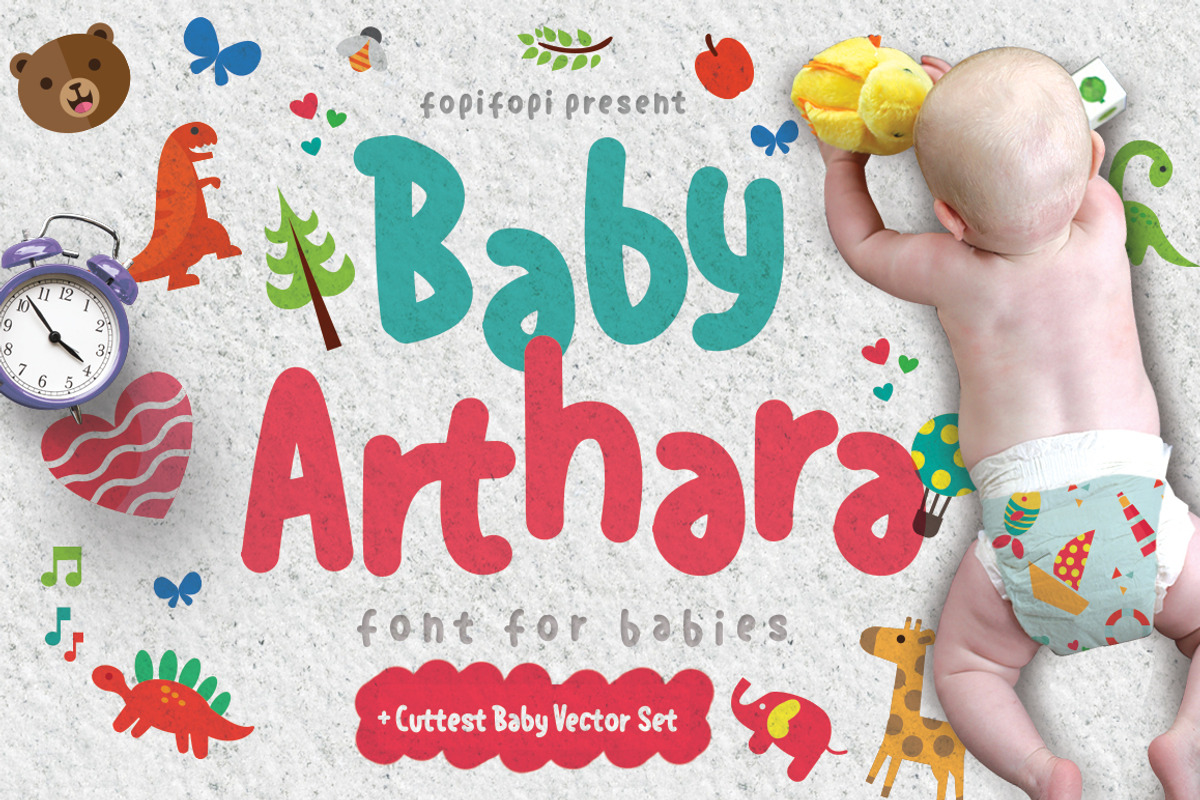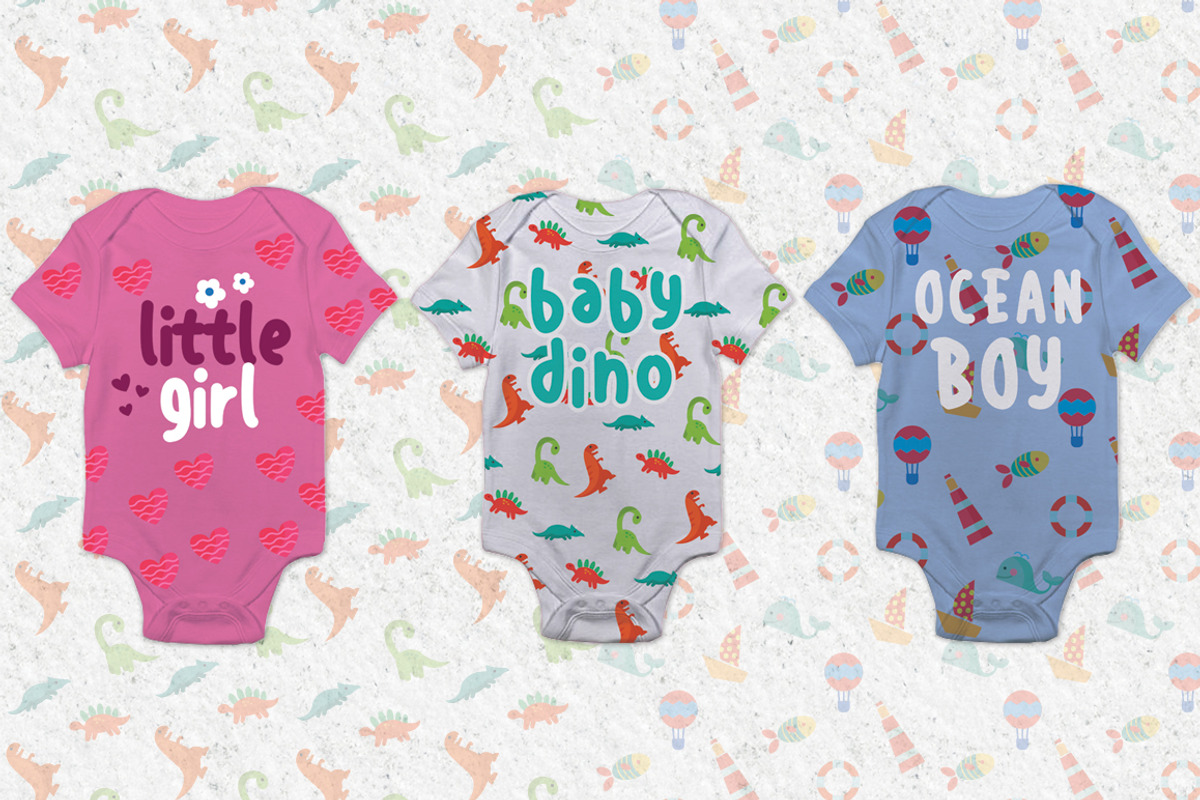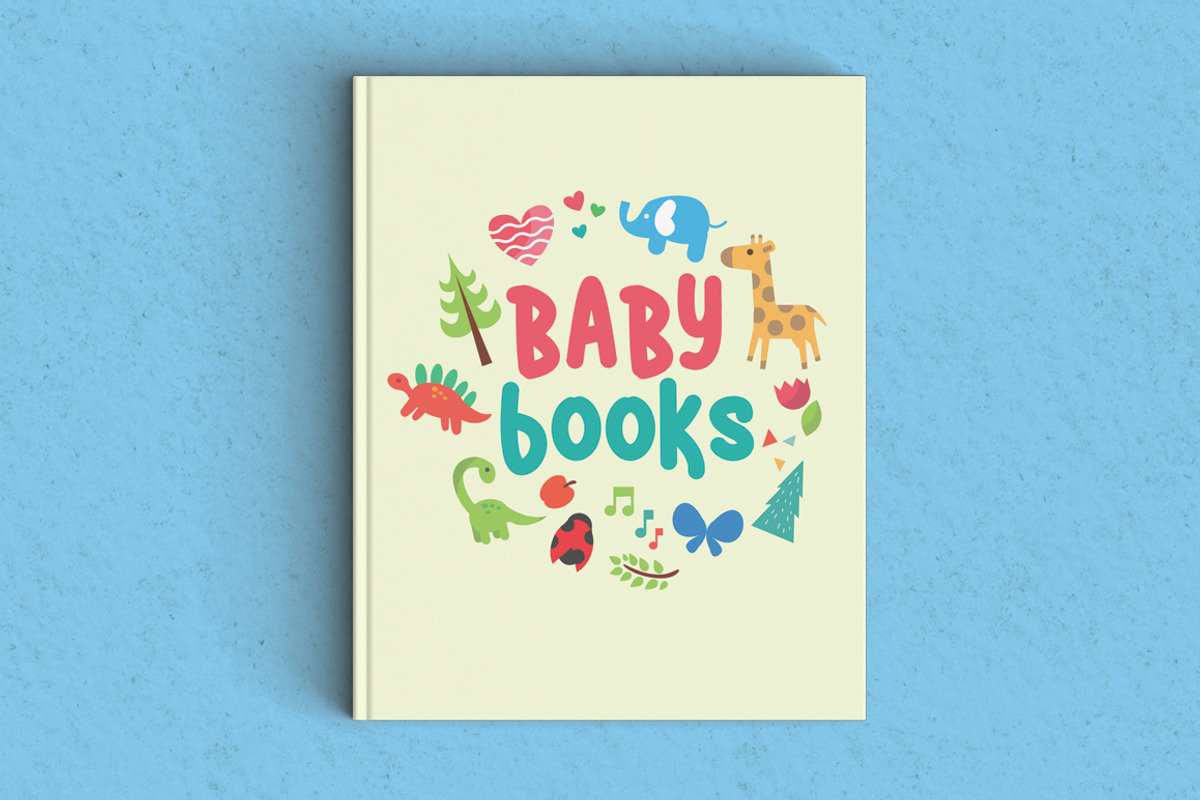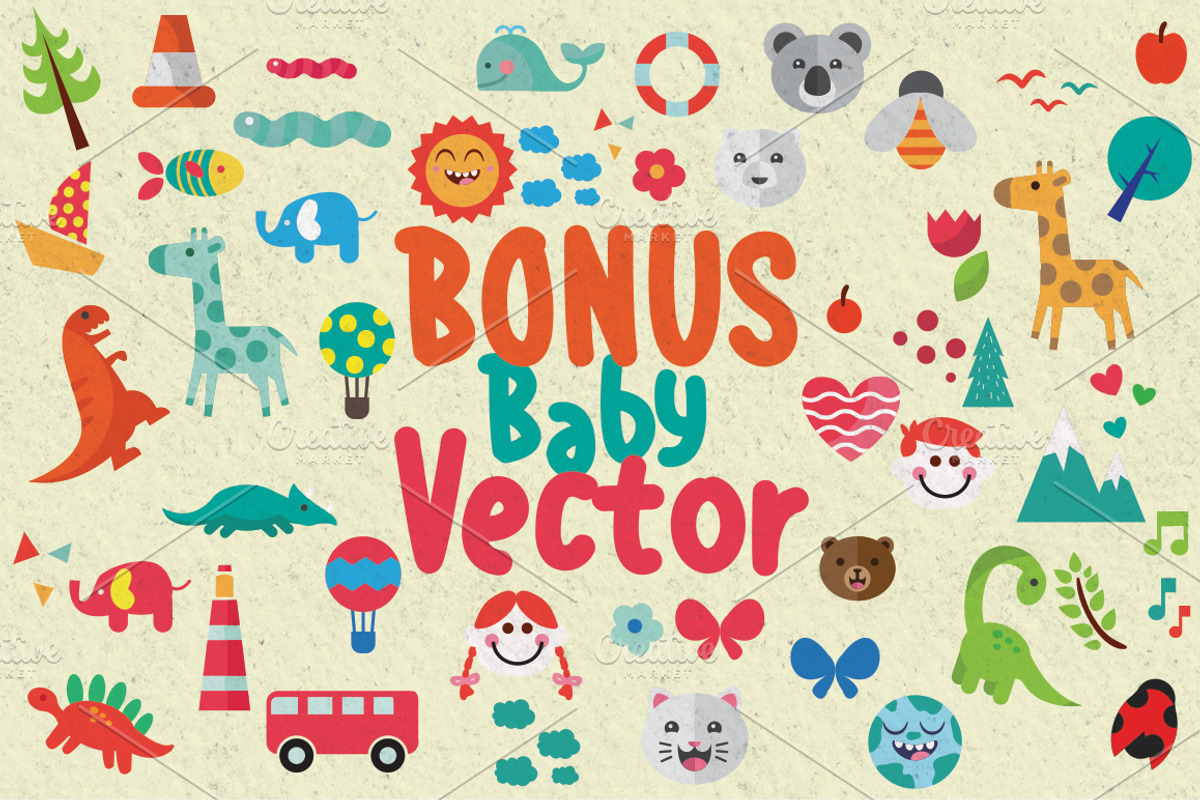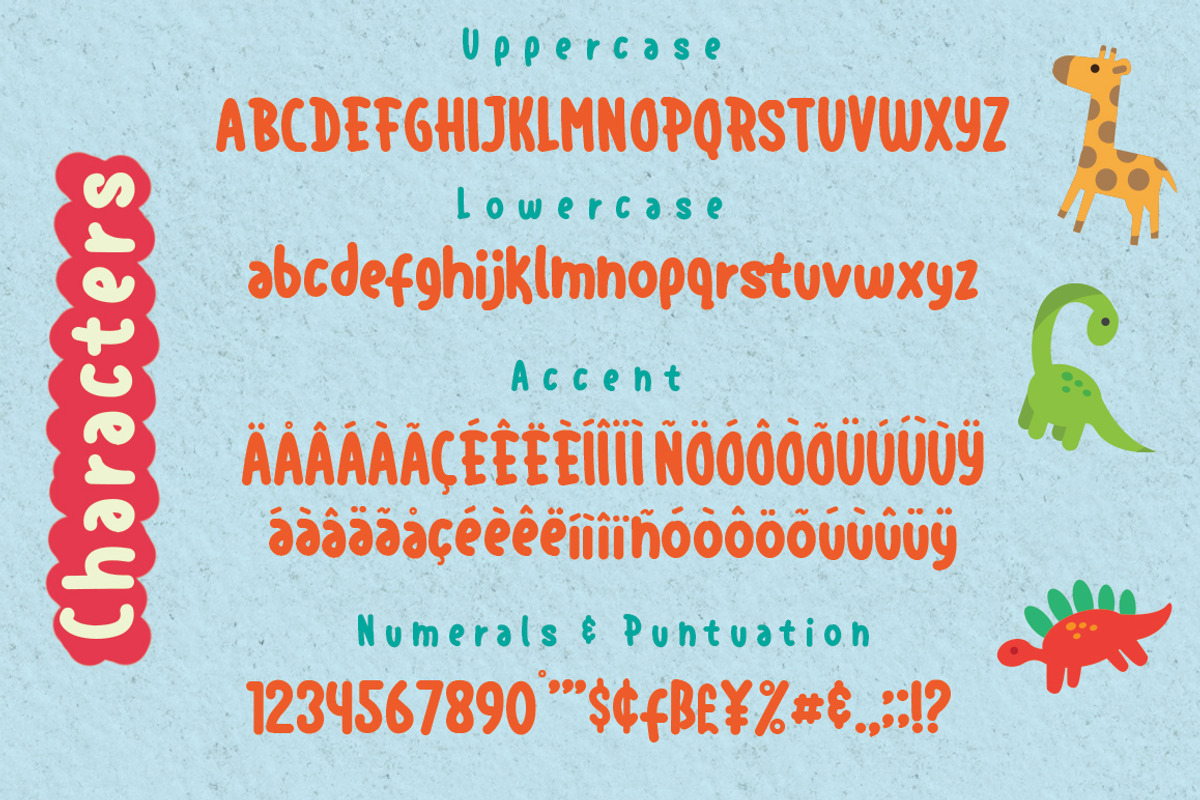
Sale ! Baby Arthara Typeface + Bonus by fopifopi is a font selected for branding, posters, packaging, typography.
- Better, since it’s not a loner, it comes with Bonus Baby Vector Pack.
Sale ! Baby Arthara Typeface + Bonus by fopifopi fits naturally into Branding, posters, packaging, typography.